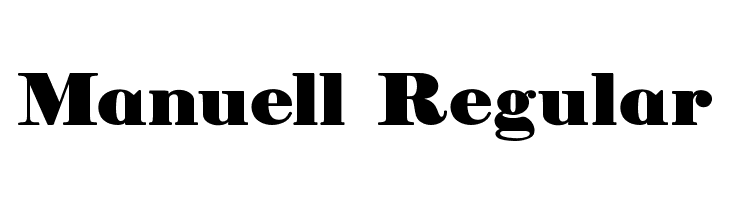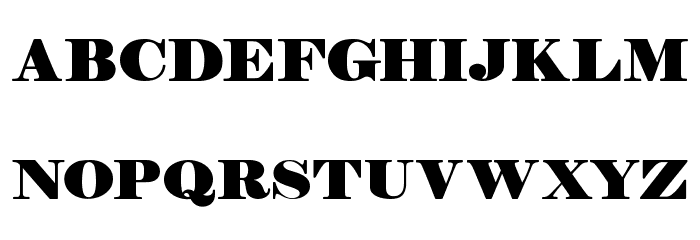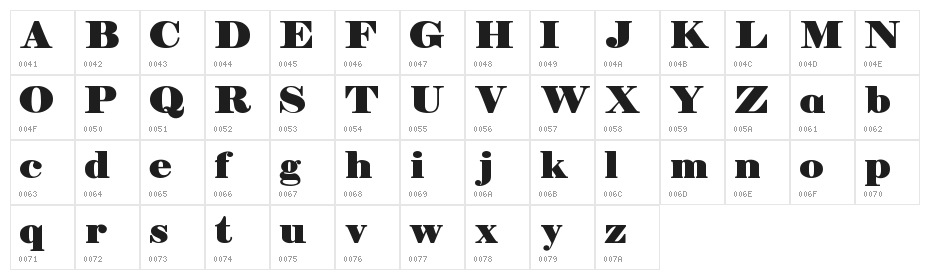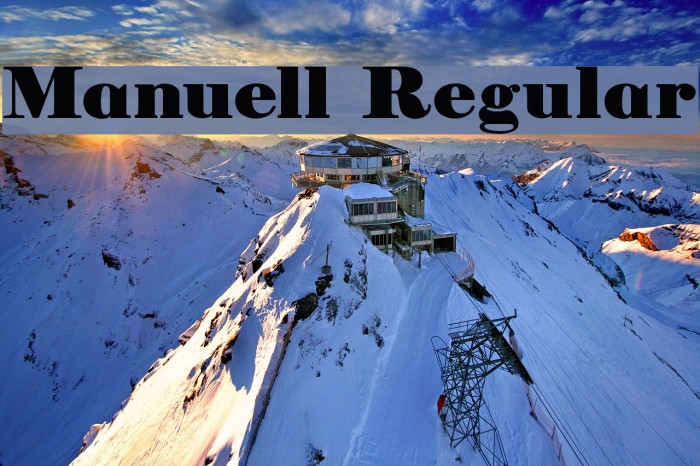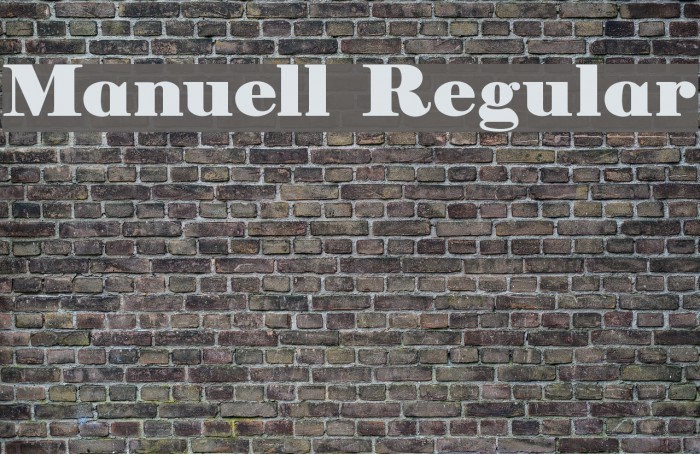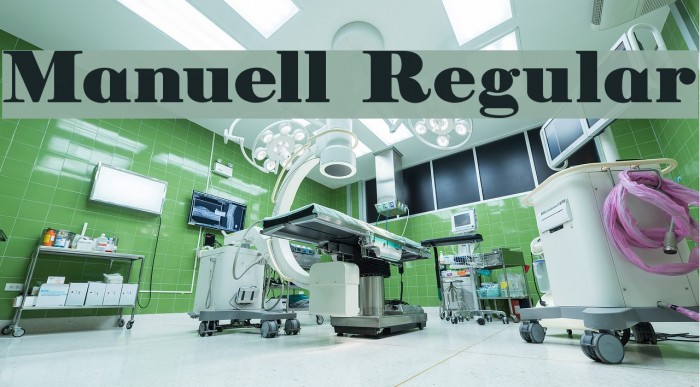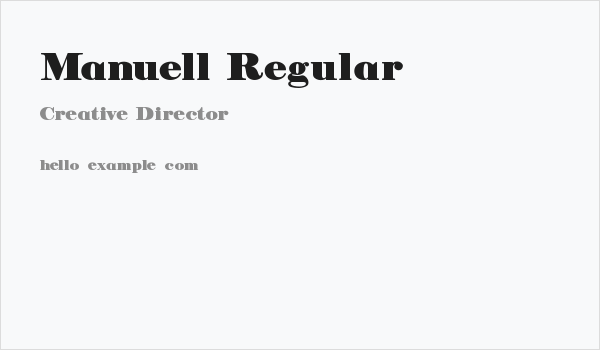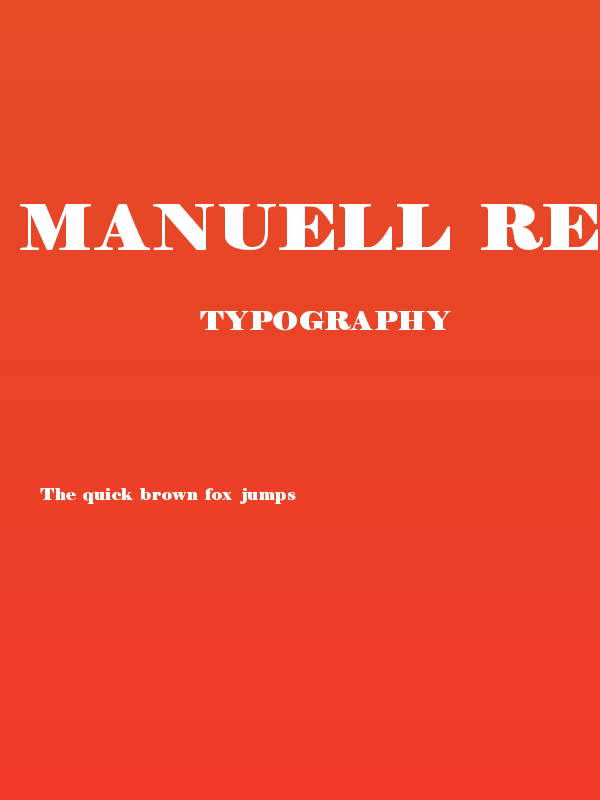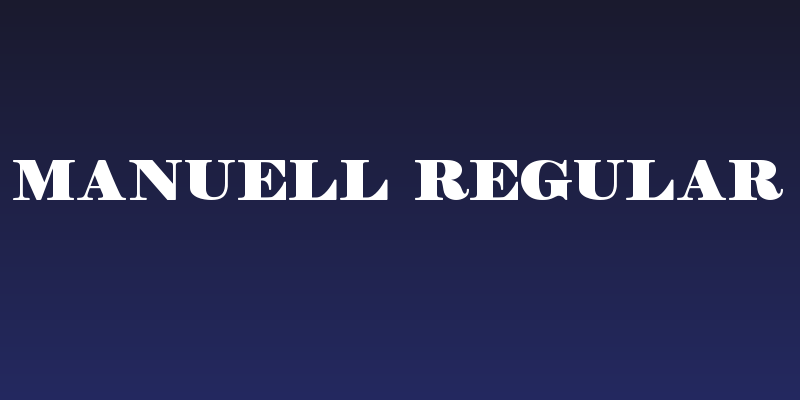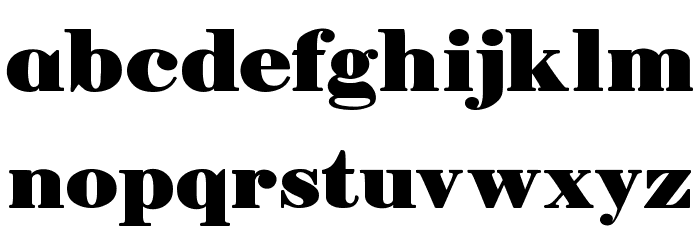
Manuell Regular Font
Manuell Regular Description
This font features a bold and commanding presence with its thick, strong strokes and high contrast between thick and thin lines. The serifs are pronounced, adding a classic and authoritative feel. The uppercase letters are particularly striking, with a sense of grandeur and formality. The lowercase letters maintain the boldness, offering a cohesive look throughout. The overall design is balanced, with a slight emphasis on verticality, giving it a robust and sturdy appearance. This font is well-suited for making a statement, whether in headlines or logos, where a sense of strength and reliability is desired.
| Proposed Projects | Ideal for use in headlines, branding, and editorial design where a strong, classic presence is needed. |